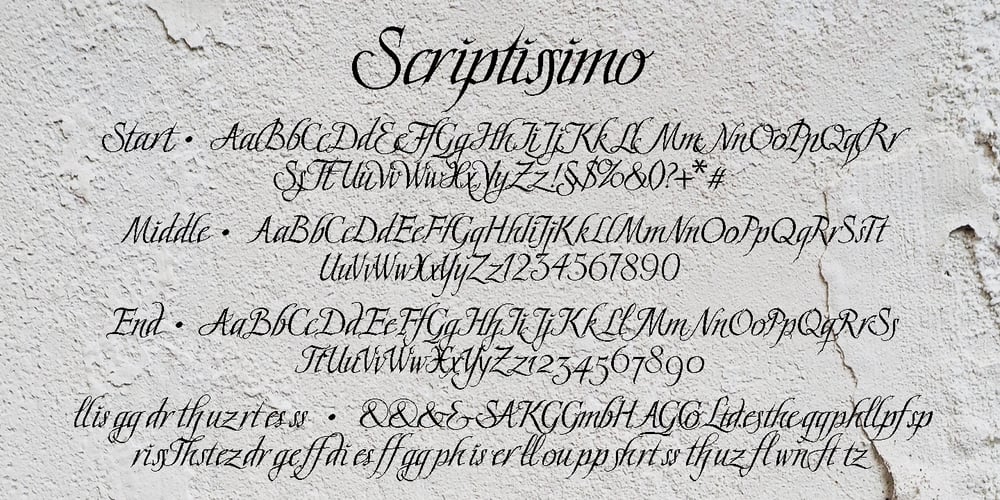
Scriptissimo Font Family was designed by Gert Wiescher and published by Wiescher Design. Scriptissimo contains 4 styles and family package options. Scriptissimo is, as the name says, very much of a script! It is in the best American tradition. A script that could have served for writing the Constitution with, if only they would have had computers at that time. Scriptissimo consists of three different scripts that are meant to be used together. One is the script with the more or less plain characters. Two is the version for characters to start a word with. Three is the cut that has the characters for the end of a word. Ligatures is used for, well, ligatures and some glyphs like Ltd., GmbH, and so on. Scriptissimo is a very elegant and versatile script. It can be used for chocolate bars as well as stock certificates. I really enjoyed designing it. Yours scriptissimo, Gert Wiescher